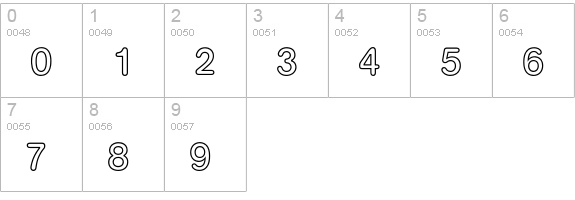
Akzidenz-Grotesk Rounded Medium Outline Font Details
Akzidenz-Grotesk Rounded Medium Outline is a balanced, medium-weight variant in the Akzidenz typeface family \xE2\x80\x94 well suited to sub-headlines, navigation, and balanced editorial work.
Akzidenz-Grotesk Rounded Medium Outline font is a modern and sleek typeface that strikes a perfect balance between professionalism and playfulness. This unique font features rounded edges and a medium weight with an outline style, making it ideal for a wide range of design projects. Whether you're creating a poster, logo, website, or any other visual content, this font will add a touch of sophistication and creativity to your work. The Akzidenz-Grotesk Rounded Medium Outline font is not only stylish and versatile but also available for free download at FontsMarket.com. This means that you can easily access this high-quality font without any cost, making it a valuable addition to your design toolkit. Whether you're a graphic designer, web developer, or hobbyist, this font will enhance your projects and help you stand out from the crowd. Don't miss out on this opportunity to elevate your designs with the Akzidenz-Grotesk Rounded Medium Outline font – download it for free today at FontsMarket.com!